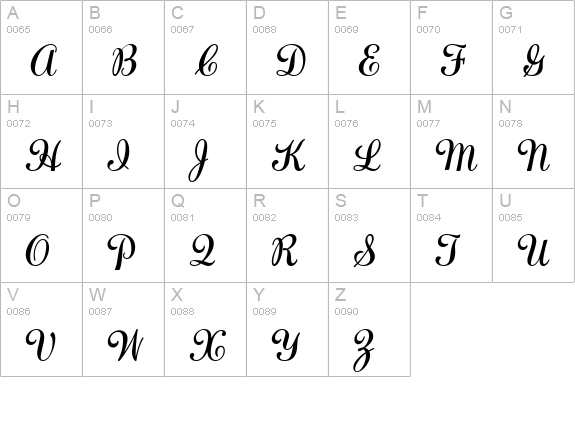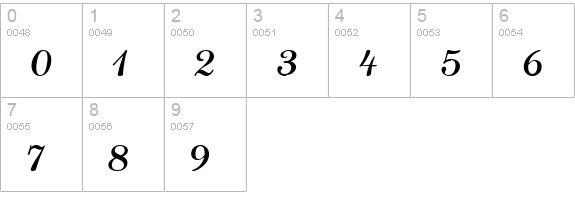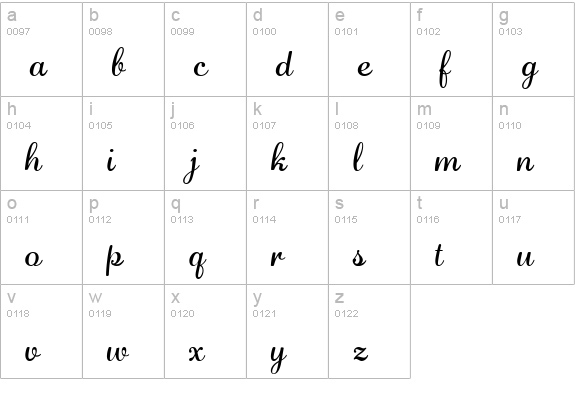
AdageScriptJF Font Details
AdageScriptJF is a beautifully crafted handwritten font that exudes elegance and sophistication. With its flowing and graceful strokes, this font is perfect for adding a touch of charm to your designs. Whether you are working on invitations, logos, or branding materials, AdageScriptJF will elevate your projects to new heights. The best part? AdageScriptJF is available for free download at FontsMarket.com! This means you can easily access this stunning font and use it in your projects without any cost. Don't miss out on the opportunity to enhance your designs with the timeless beauty of AdageScriptJF. Download it today and let your creativity shine!